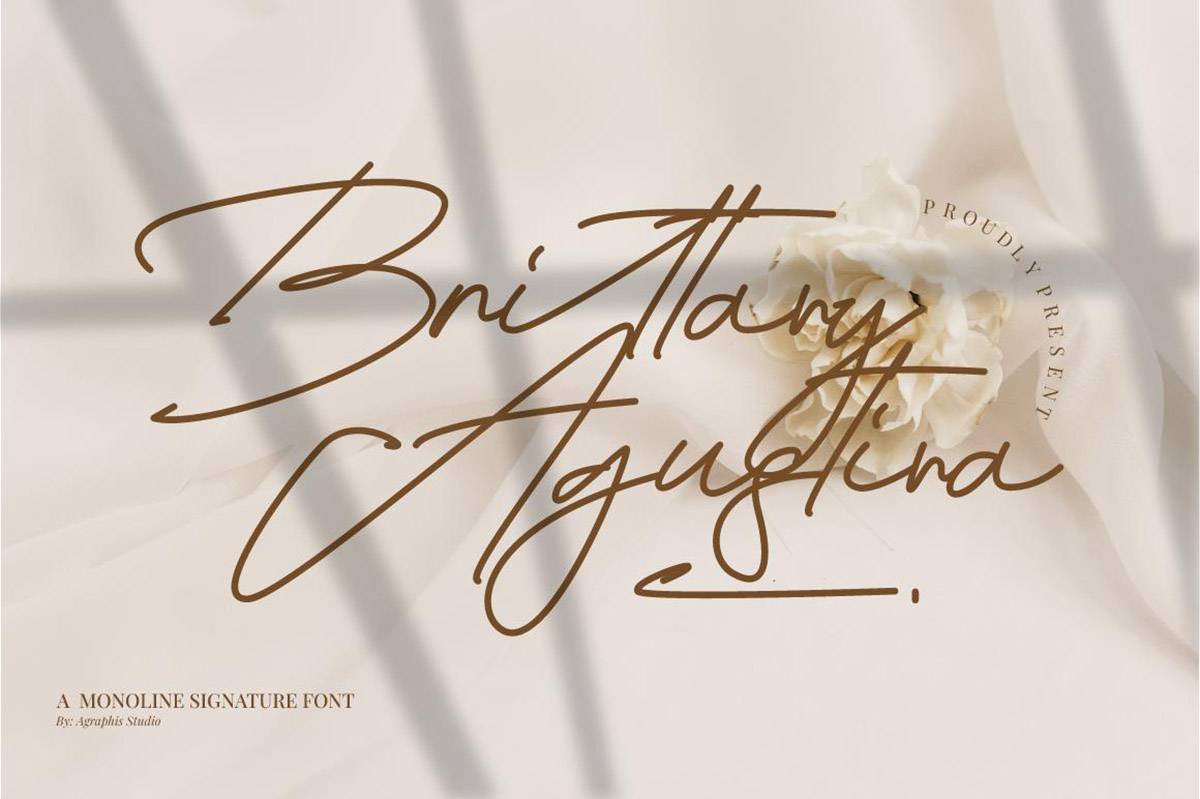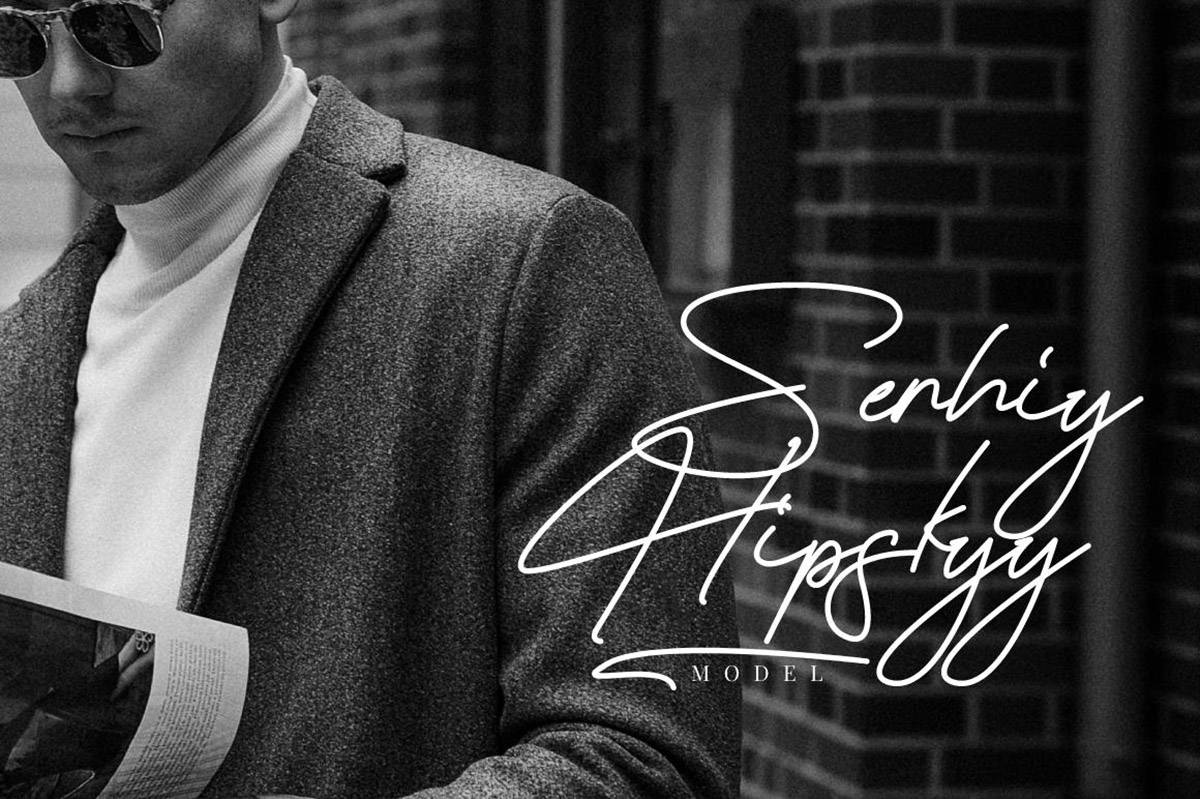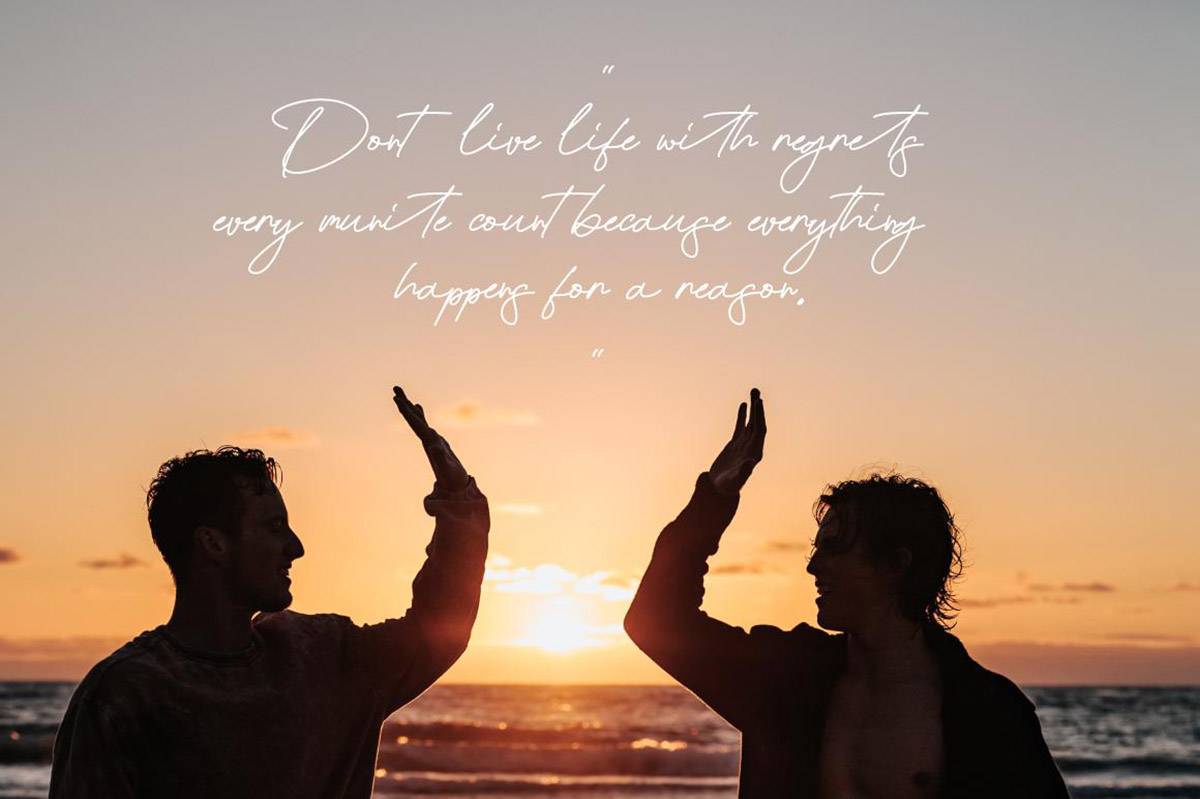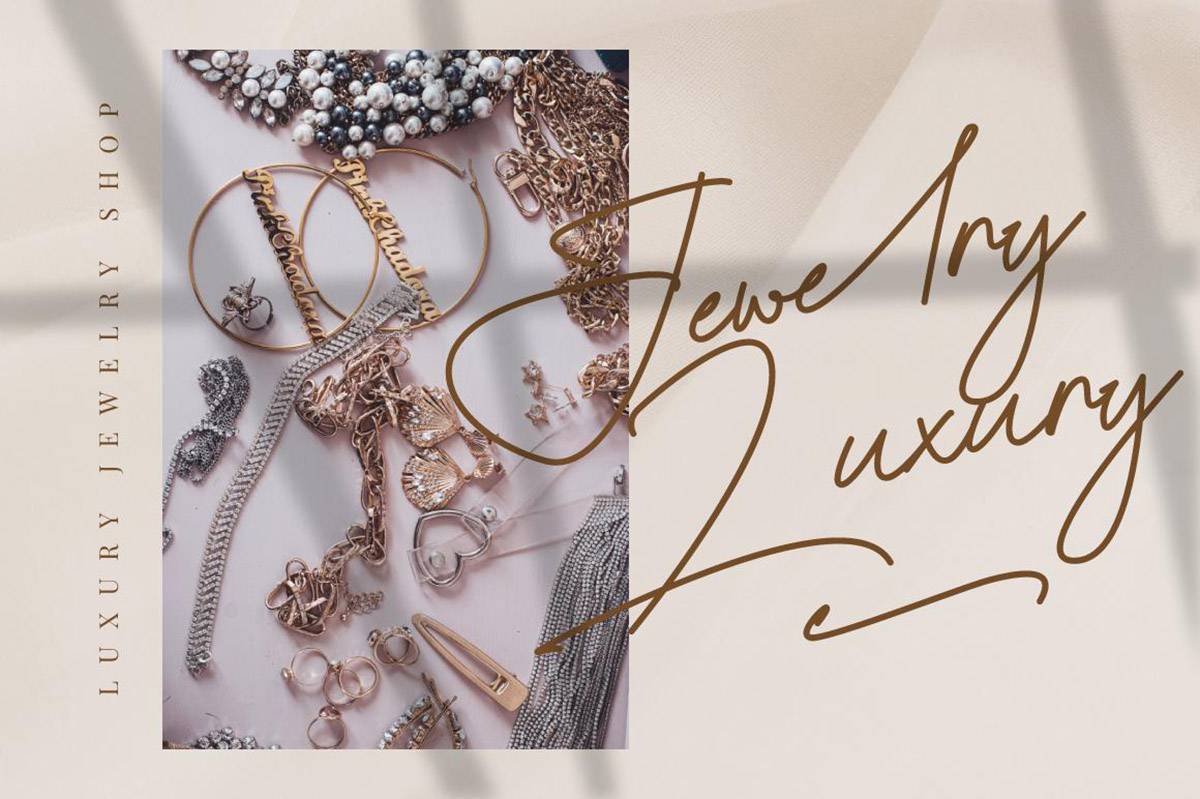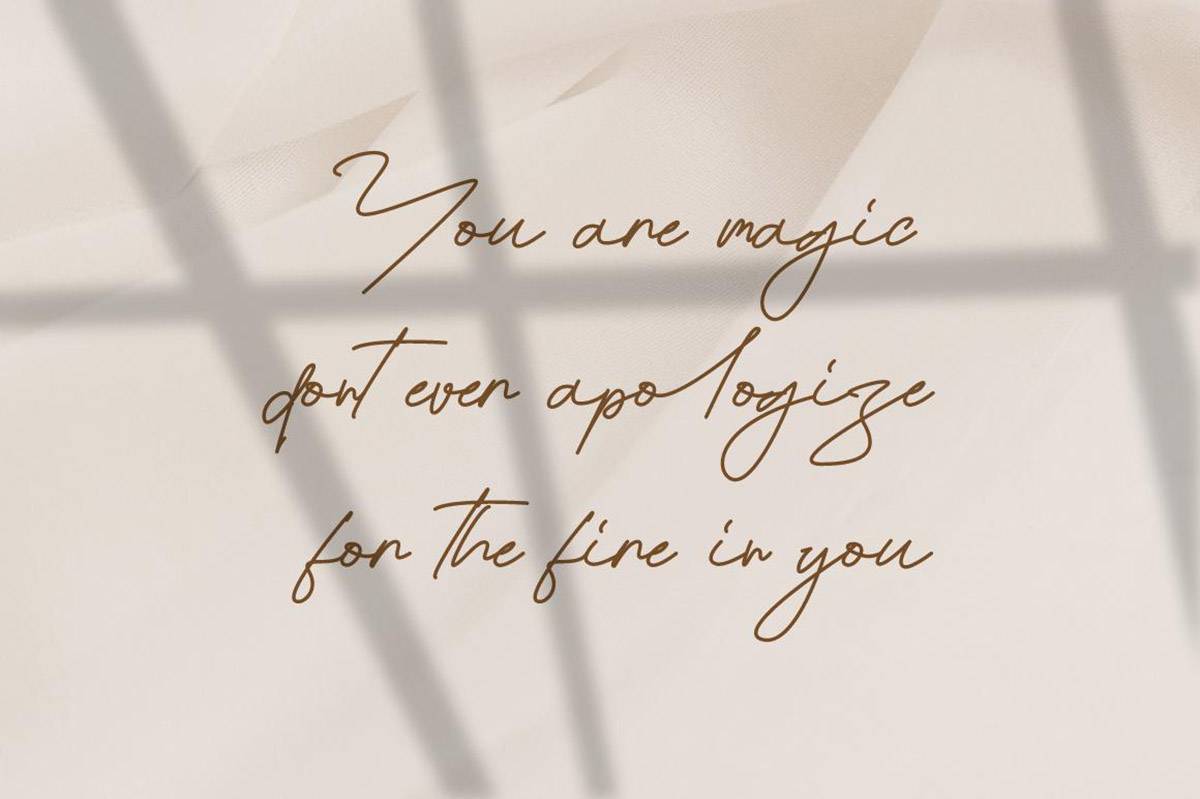
Brittany Agustina is a delicate, handwritten script font with a graceful and flowing style that conveys elegance and a personal touch. Its slender, airy strokes and cursive letterforms make it ideal for invitations, branding, and creative projects that seek a romantic or sophisticated feel. This font works beautifully in logos, wedding stationery, and feminine lifestyle designs where a refined, handwritten charm is desired.
Brittany Agustina Font
About Brittany Agustina Font